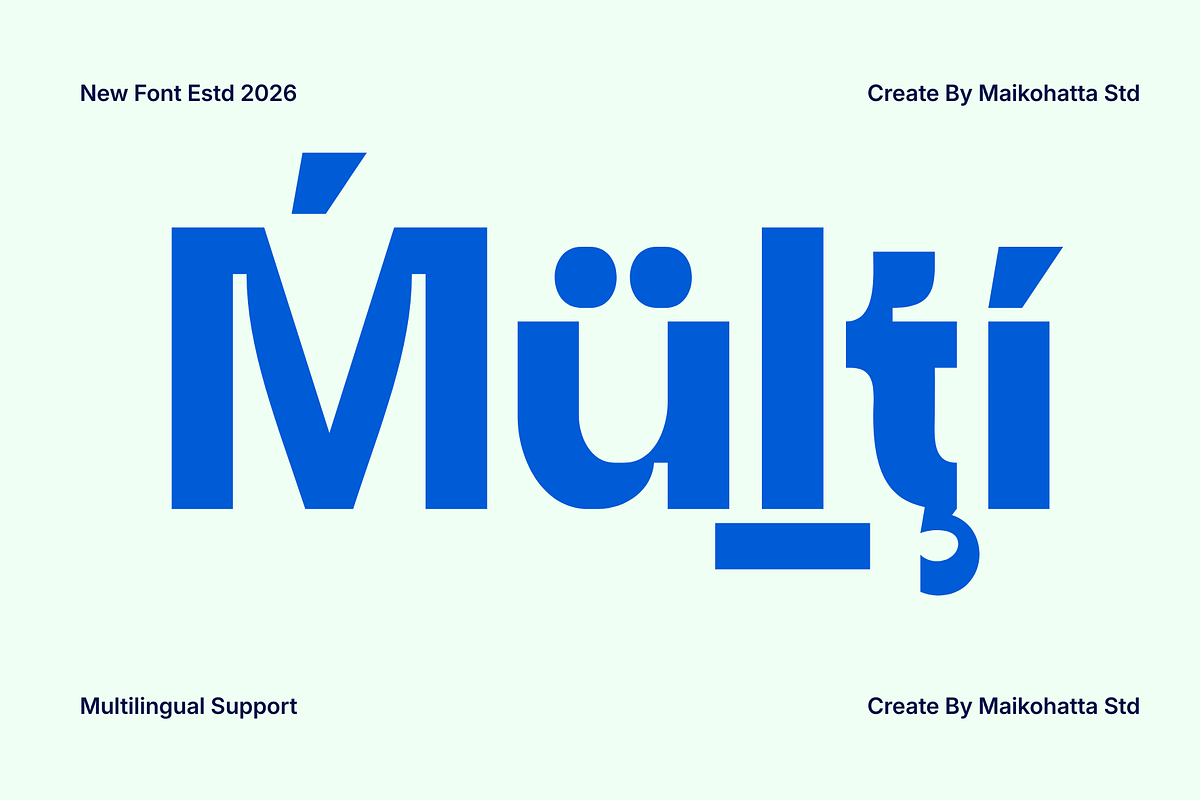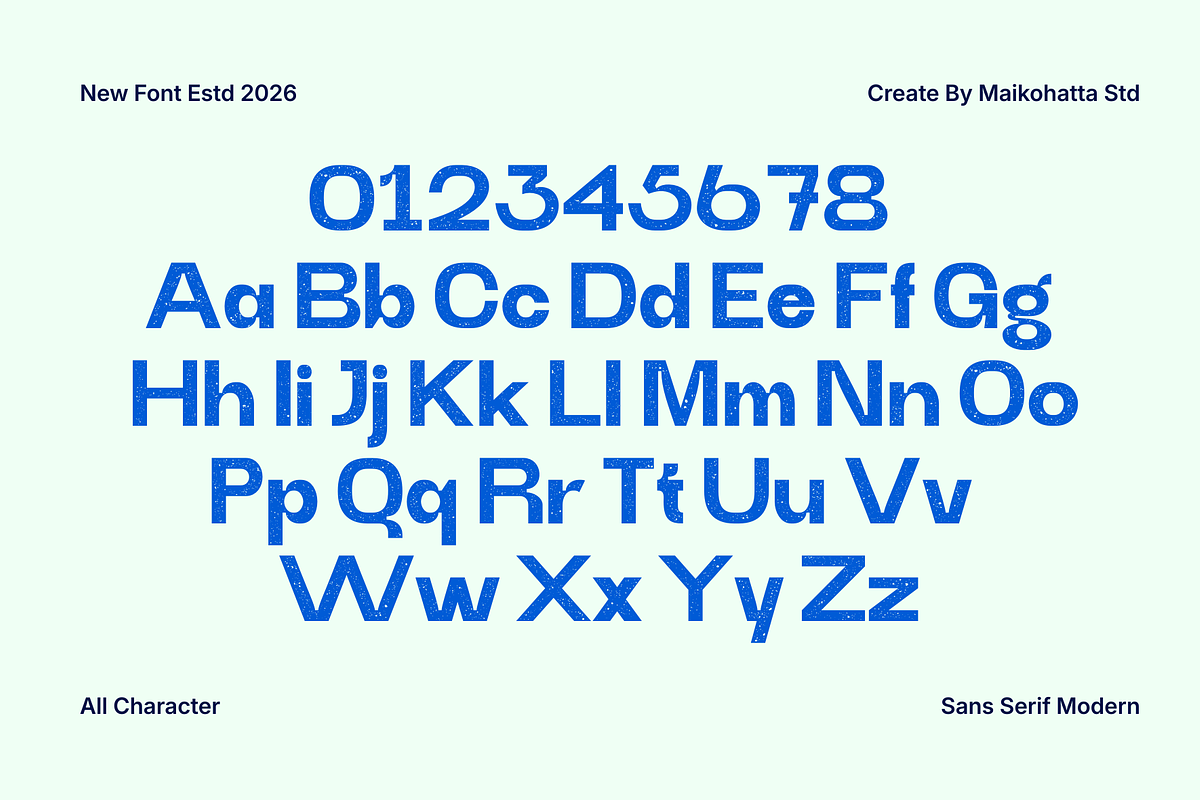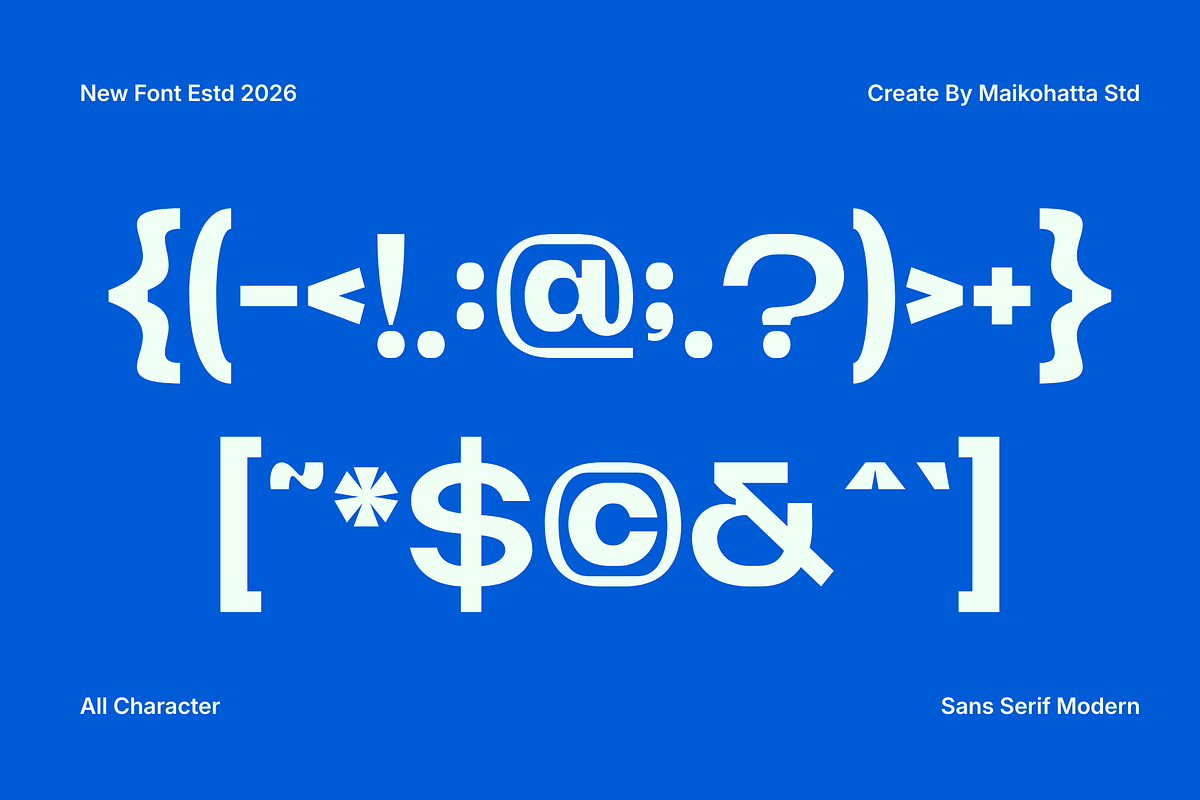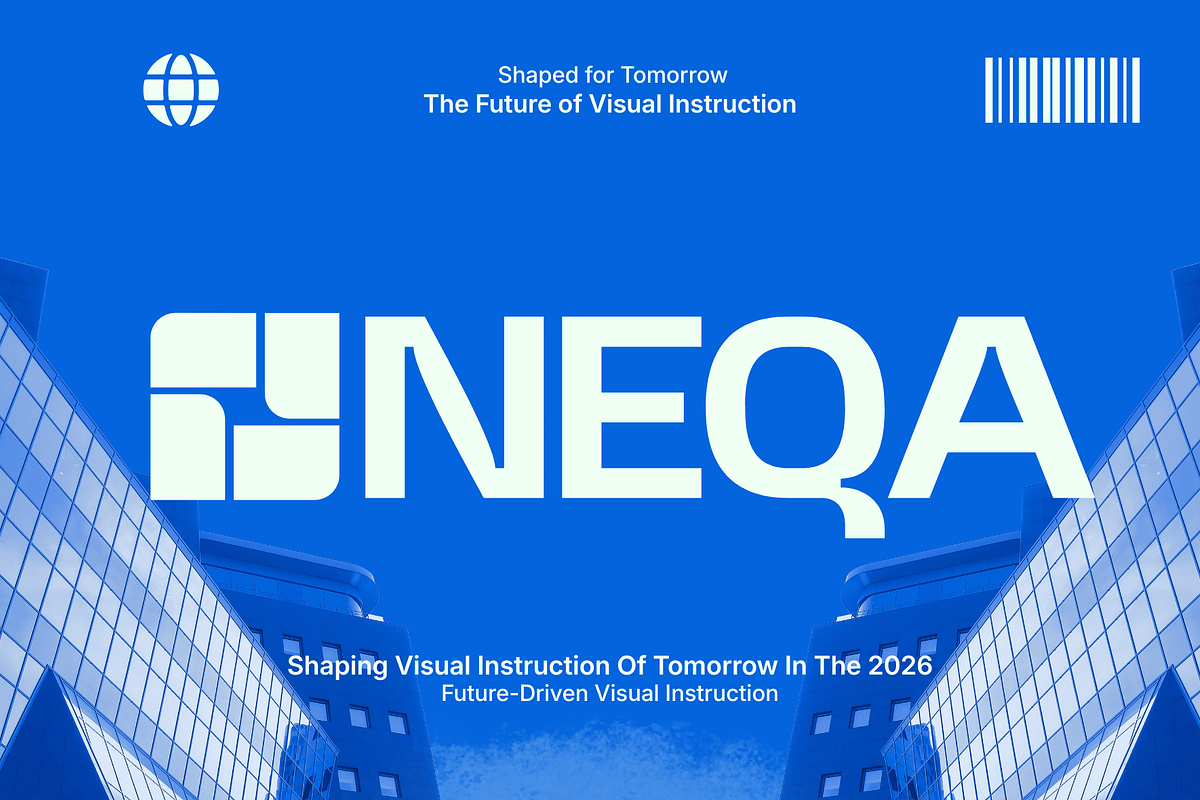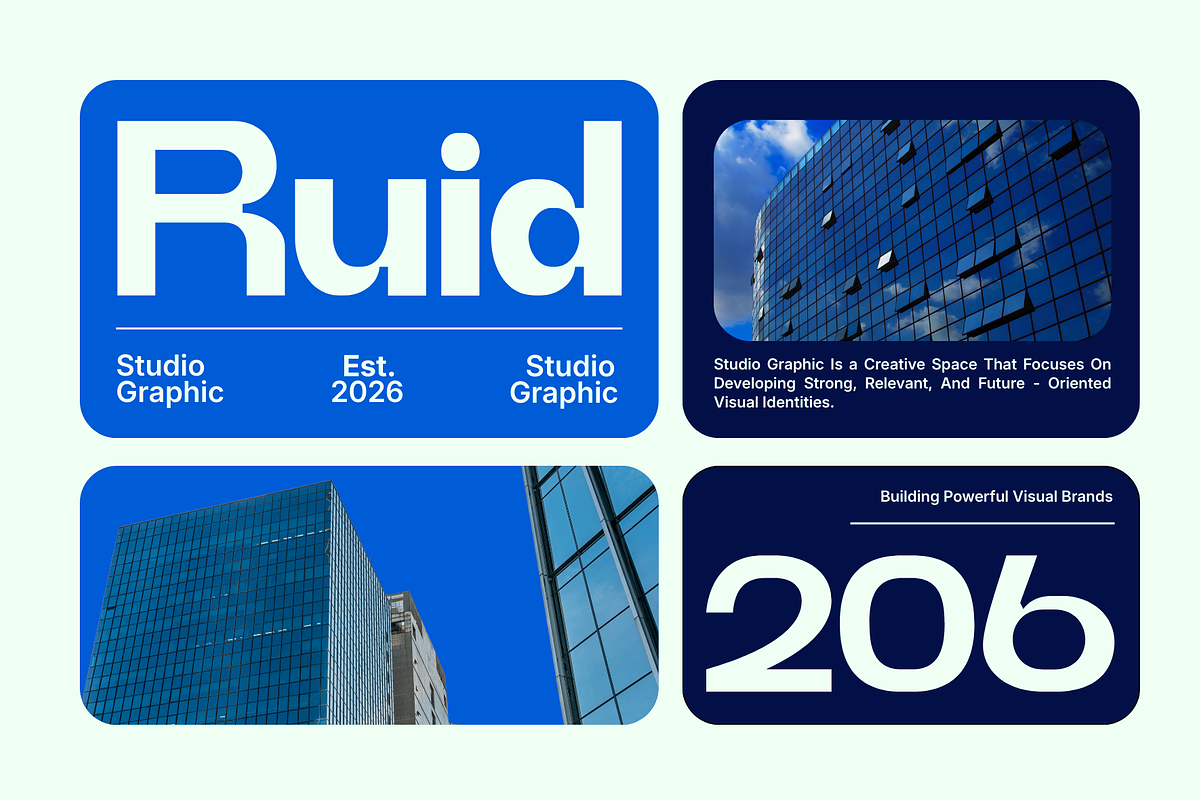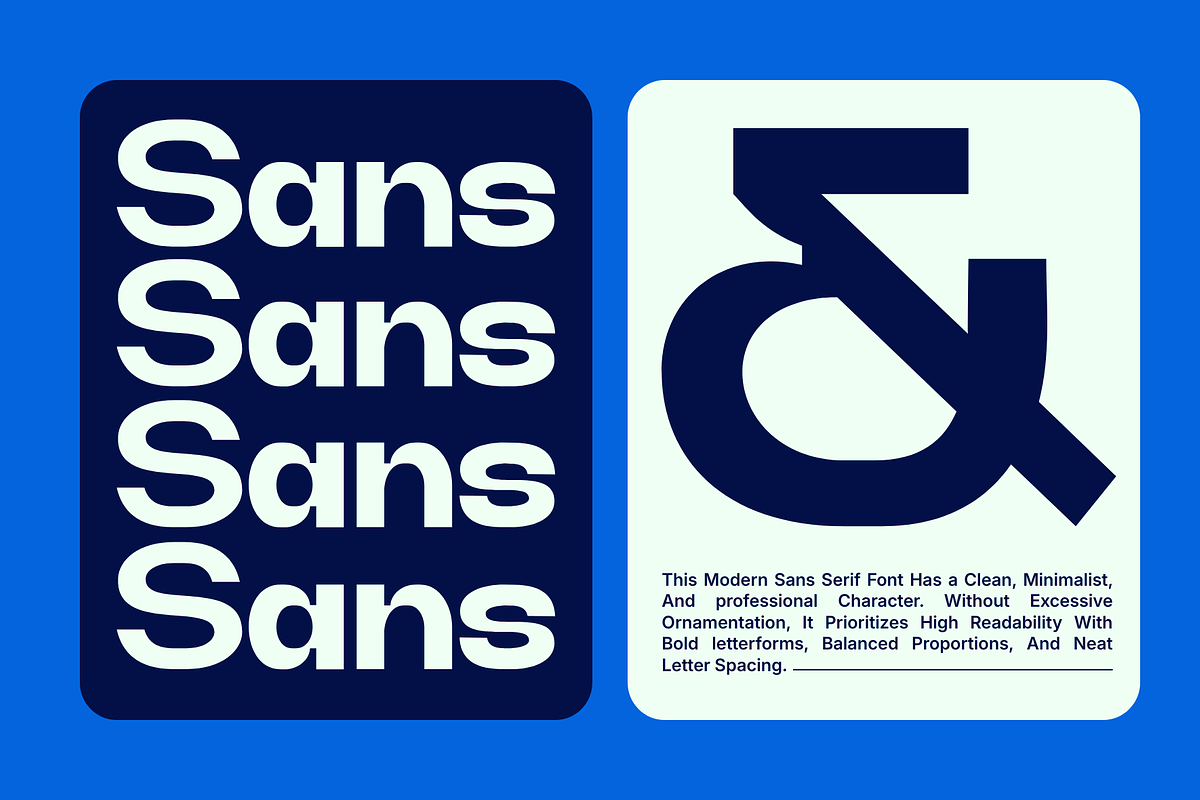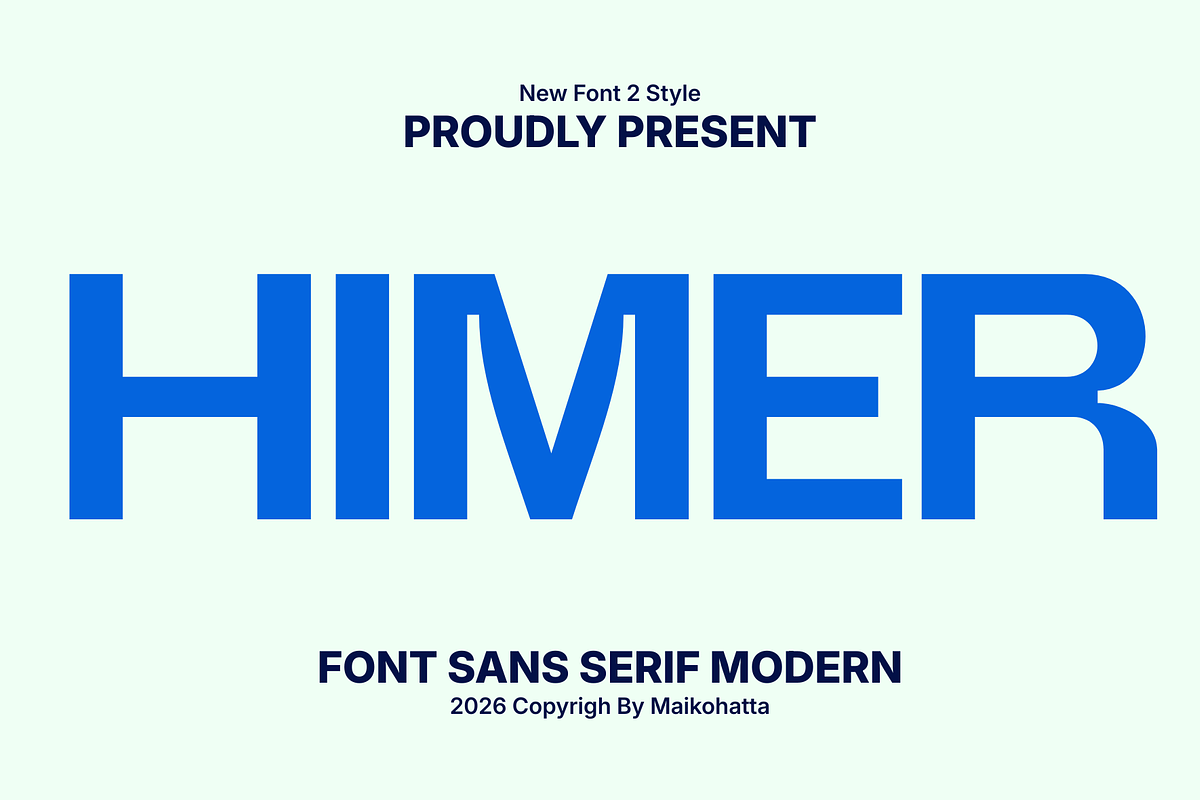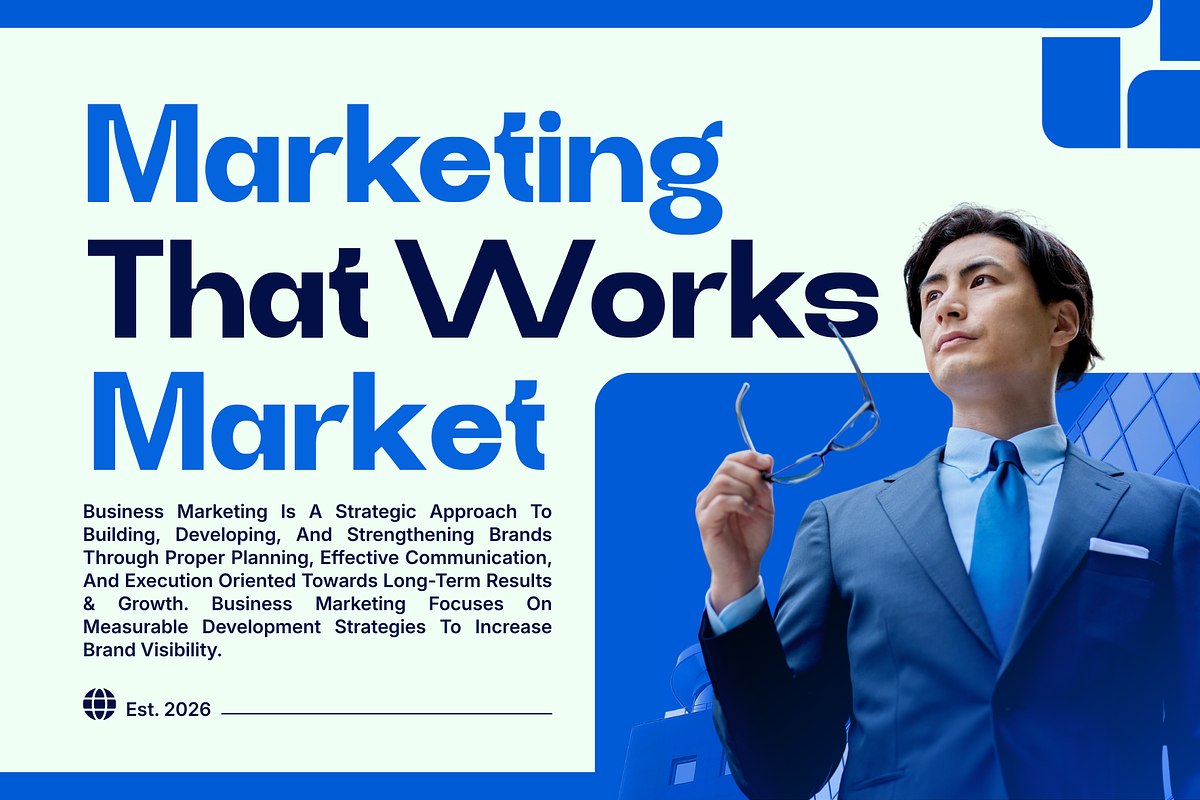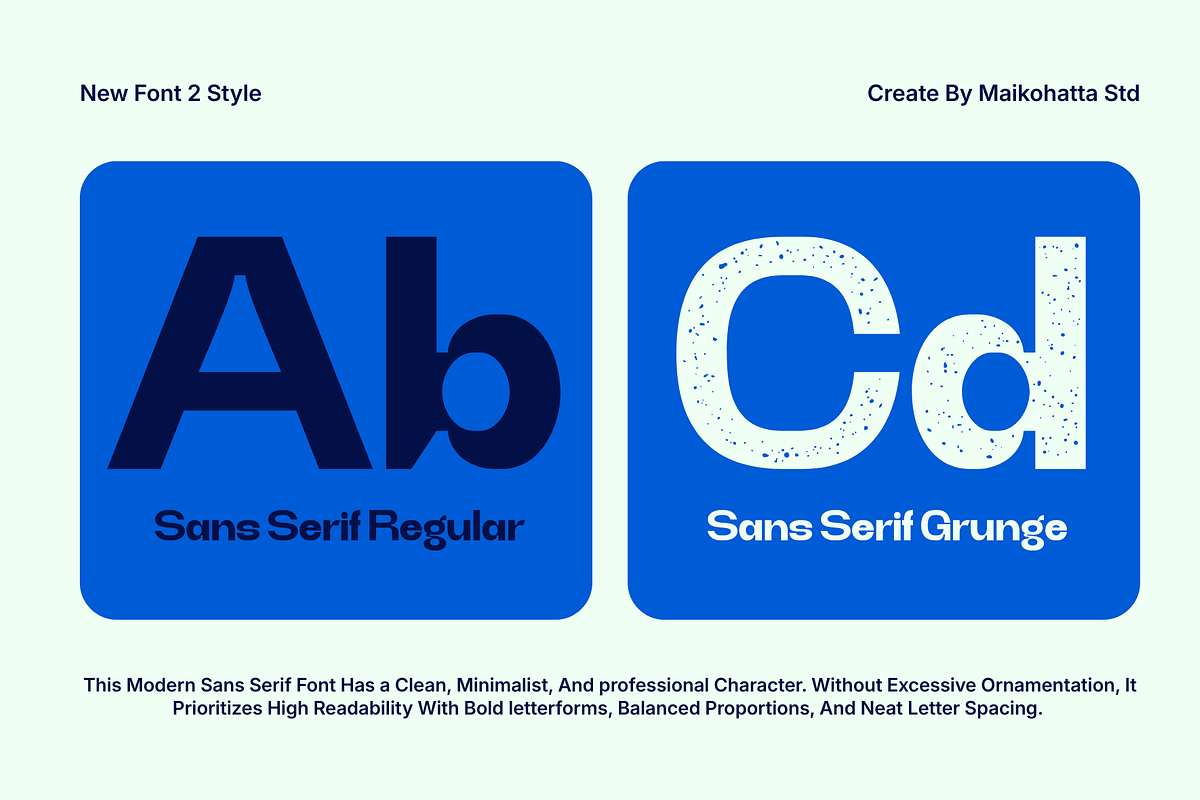
Himer – Bold Modern Sans Serif
Introducing our new product Himer – Bold Modern Sans Serif
Himer is a modern bold sans-serif typeface designed for strong, clean, and professional visual impact. With its thick strokes, balanced proportions, and minimalist style, Himer is perfect for branding, logos, headlines, posters, business cards, social media, packaging, and corporate identity projects.
This font delivers a confident, contemporary, look while maintaining excellent readability across both digital and print media.